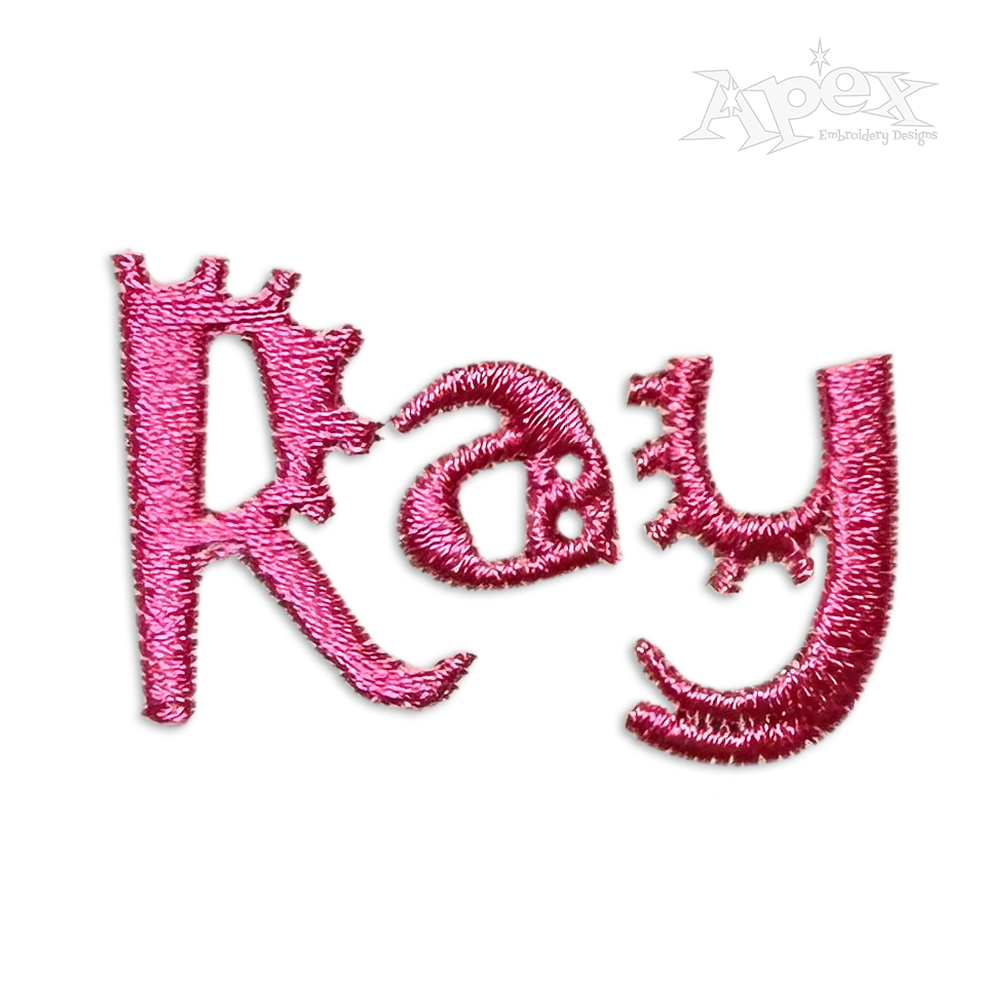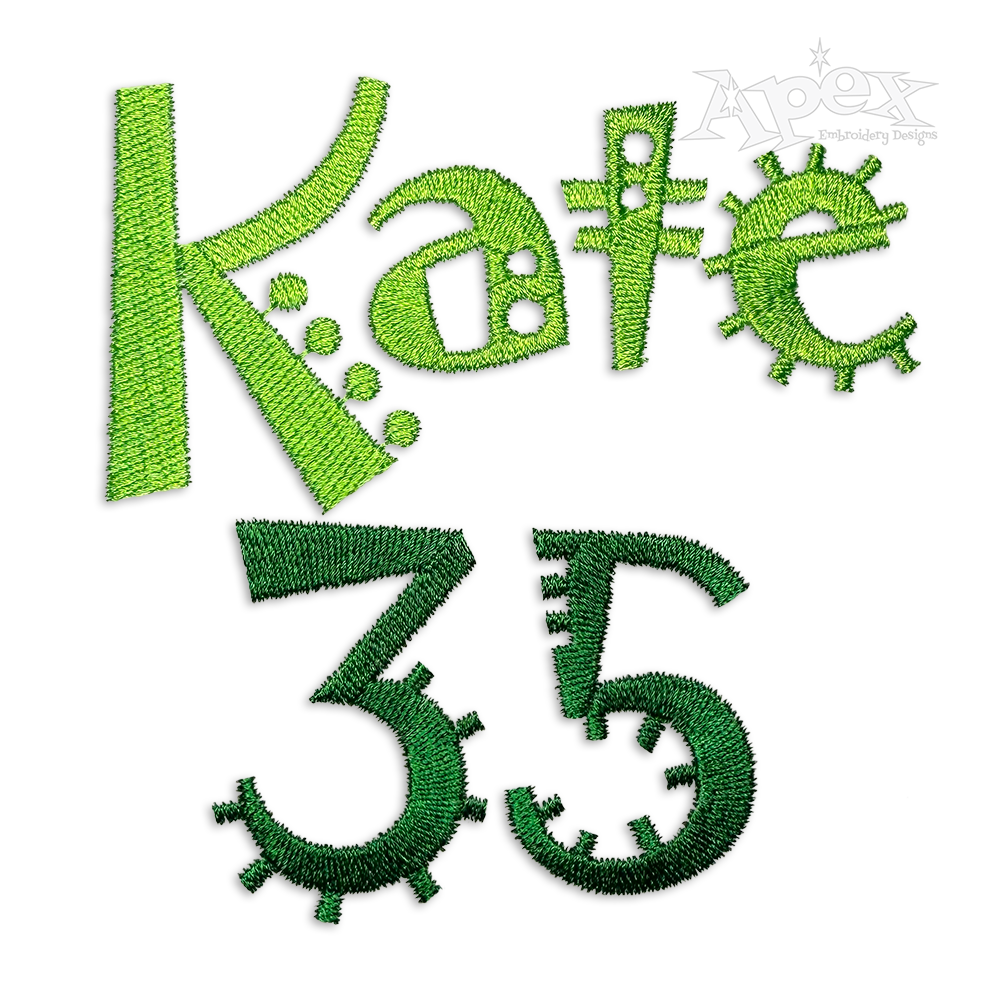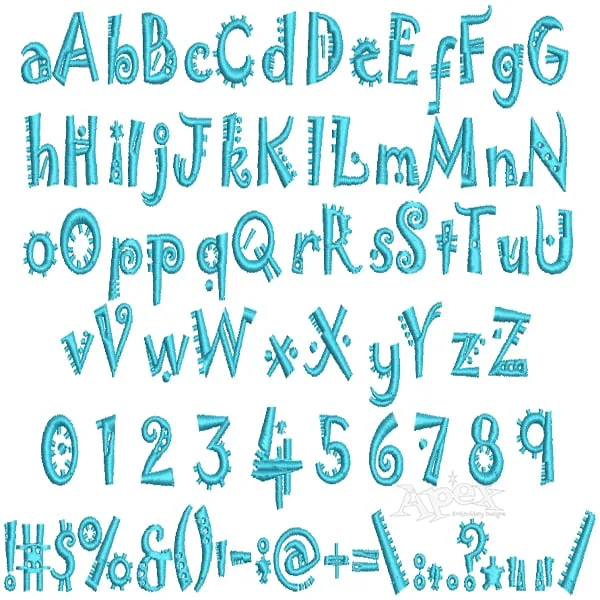
JokerMan Embroidery Font
Fiesta spirit meets needle craft. JokerMan Embroidery Font bursts with eccentric cutouts, lively spikes, and kinetic energy. Glyphs dance across fabric, turning everyday textiles into celebration pieces defined by rich satin stitch alphabet detailing and fearless personality.
Project Ideas for JokerMan
- Personalized fiesta totes, canvas market bags, and bespoke resort wear.
- Milestone birthday tees, festival jackets, and boutique childrenswear.
- Embroidered event favor pouches, party banners, and custom drink sleeves.
- Punchy monograms on denim vests, beach towels, and playful vacation gear.
Center 2-inch letters on youth chest fronts or denim back panels. Position 1-inch letters on tote pockets, bucket hat fronts, or zip pouches. Use 0.75-inch letterforms for cuff details, collar wings, border monograms, and personalized gifting tags.
JokerMan Craft & Letterform Details
Digitized from iconic playful typography, each character balances whimsical radial cutouts, geometric spurs, and clean dot accents. Satin stitch columns feature mapped turn angles to control tension, maintain clean edges, and create dynamic thread luster. Dense underlay secures delicate cutouts, delivering crisp definition across tricky spikes and curves for flawless custom monogramming.